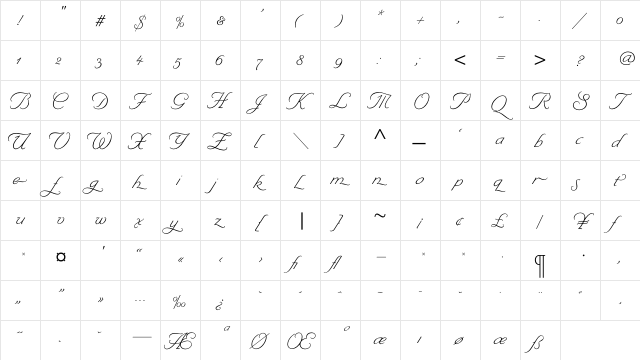
ByronLightSwash Regular Font Preview
Design Context for ByronLightSwash Typeface
ByronLightSwash brings a calligraphic fluidity to the page — its connecting strokes and expressive curves give it an unmistakably human quality. The delicate stroke weight brings airiness and refinement to layouts.
Font Pairing: Combine ByronLightSwash with a simple geometric sans for maximum contrast — the tension between flowing curves and clean structure is a classic typographic pairing.
Pro Tip: Pair ByronLightSwash with a clean sans-serif for supporting text. The contrast between fluid script and geometric structure creates an elegant typographic hierarchy.